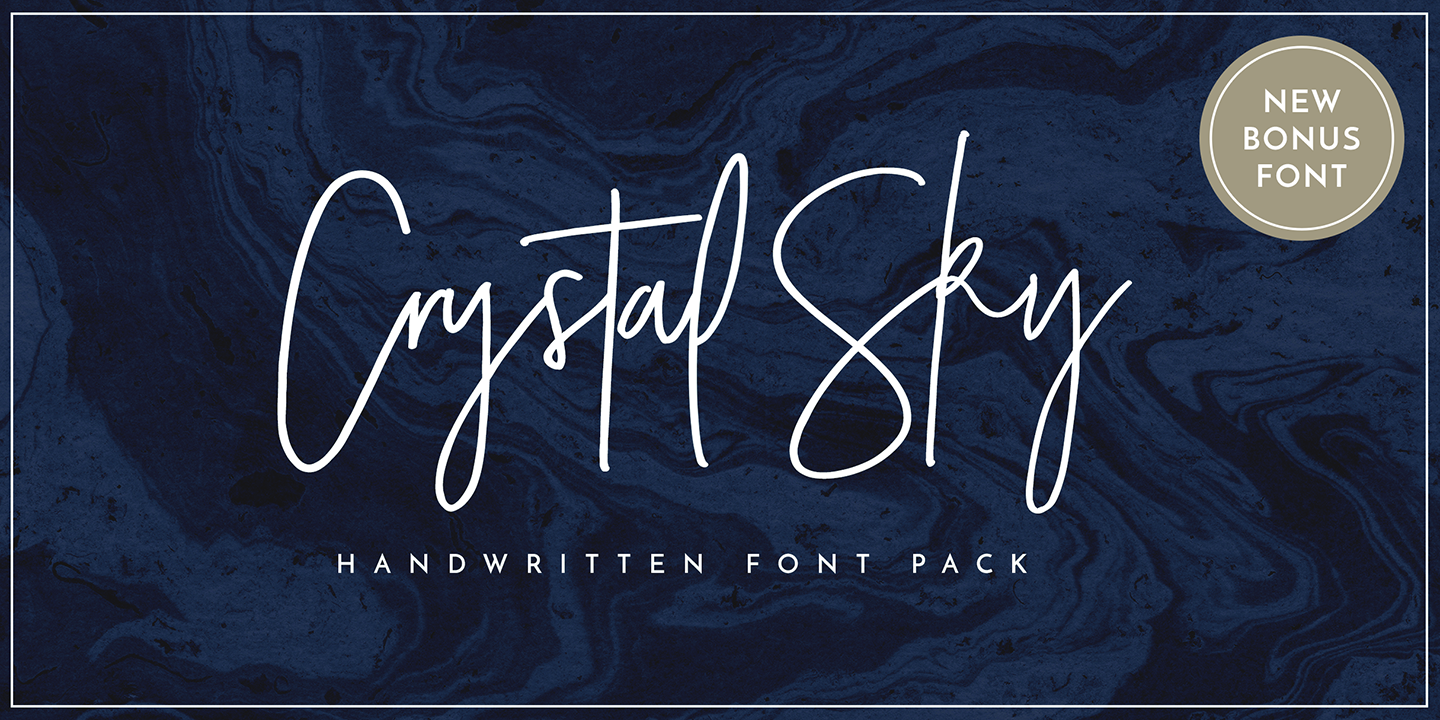
Crystal Sky Font Free Download is a stunning handwritten script font that exudes charm and elegance. With its flowing curves and natural strokes, it’s perfect for wedding invitations, fashion branding, social media graphics, and lifestyle blogs that need a soft, feminine touch.
Whether you're designing romantic event materials or crafting a brand with a dreamy, boutique feel, Crystal Sky Font Free Download brings a sense of whimsy and beauty to your typography. It’s highly legible while maintaining its artistic flair, making it ideal for both print and digital formats.